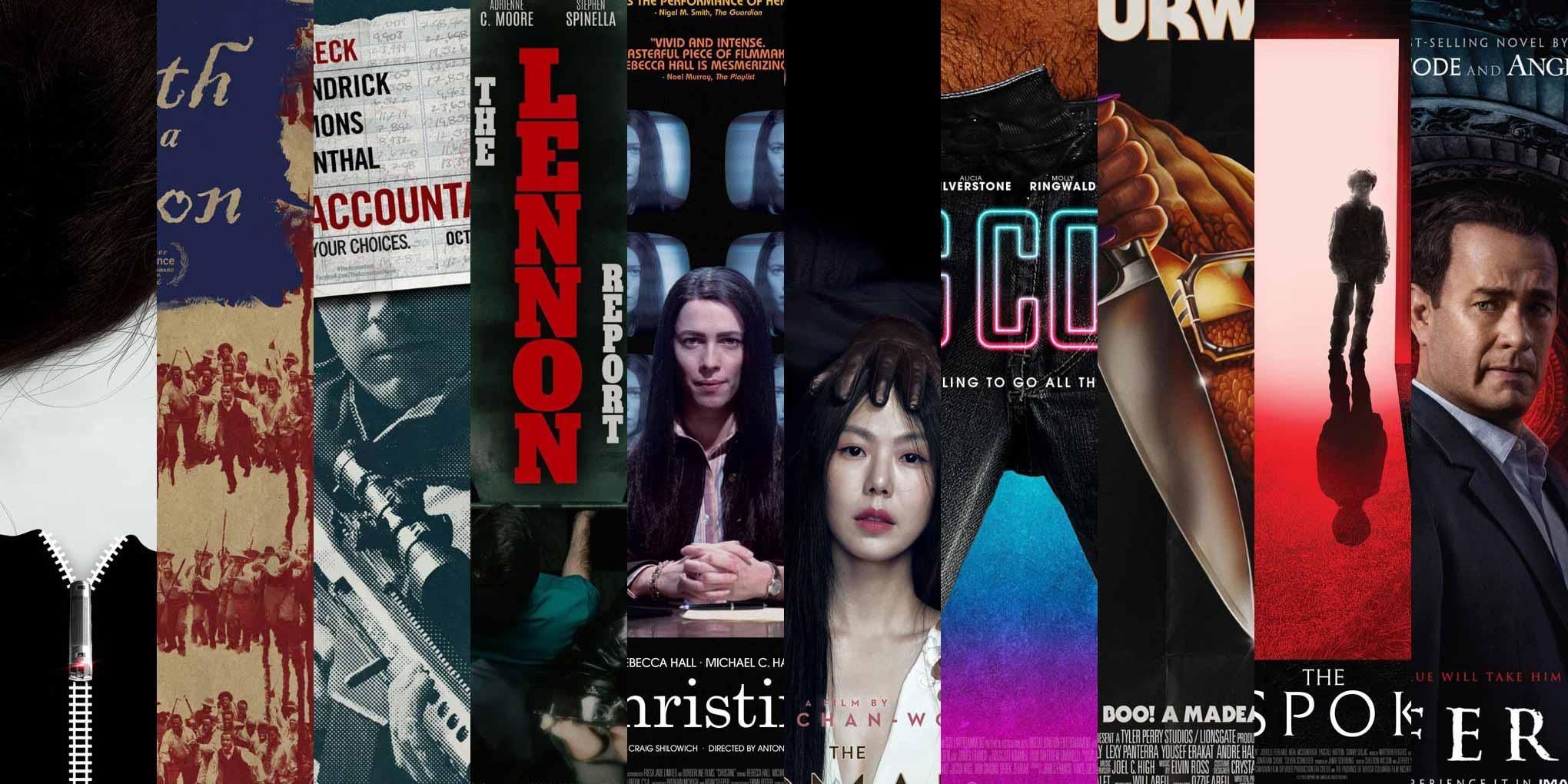
ScreenFonts: January 2017
The premier of ScreenFonts at Type Network features (full-size!) posters for The Girl on the Train, The Birth of a Nation, The Accountant, The Lennon Report, Christine, Ah-ga-ssi (The Handmaiden), King Cobra, Boo! A Madea Halloween, and The Unspoken—and comes full circle with Inferno.
Editor’s note: Yves Peters (aka Bald Condensed) has been writing ScreenFonts since 2006. After debuting the successful series on his personal blog, Peters was tasked with writing “interesting stuff” about type and typography at FontShop. Instead of preaching to the converted, he wanted to attract readers who were not yet familiar with typography and introduce them to this fascinating field. Peters’ solution was to use pop culture to spark people’s interest by writing about topics like music, film, and advertising—artifacts that form part of the fabric of daily life. ScreenFonts demonstrates Peters’ affinity for opening our eyes to the diversity of typography that surrounds us, and his wry commentary on cinematic themes is a bonus for film buffs. And now, without further ado, it’s time to raise the curtain on the first edition of ScreenFonts at Type Network.
The Girl on the Train
Film poster for The Girl on The Train
In their teaser poster for the thriller The Girl on the Train, BOND wanted to “capture the dark, dangerous mystery at the heart of a story in which nothing is what it seems.” BOND used a simple, high-concept approach. Two elements from the film—the woman witnessing the events from the train and the love affair—are combined into one striking image. The zipper on the back of a woman’s dress turns out to be train tracks, with a speeding locomotive serving as the zipper pull. The stylized image is clever and engaging, inviting the viewer to become an active participant. The train motif is also present in the typography. Parts of Avenir’s capitals are doubled, replicating the effect of watching the passing landscape from a speeding train. An additional conceptual link to trains could have been made typographically. While the over-used Gill Sans or ITC Johnston may seem like obvious choices, it’s about time we start defying expectations as designers and typographers. Greg Thompson’s elegant Agenda is a fine alternative. Agenda’s design was also inspired by the work of Edward Johnston—in this case, his iconic London Transport face drawn for the Underground a century ago—yet the humanist sans is decidedly modern, and would have been a great fit for this stylish contemporary poster.
The Birth of a Nation
Film poster for The Birth of A Nation
The iconic flag of the United States has often been used as a graphic device to tell a story. No less than three posters this month play with the stars and stripes, two of them for the historical drama The Birth of a Nation. Set in the antebellum South, this biographical account of the uprising orchestrated by Nat Turner, a literate slave and preacher, intentionally reappropriates the title of D.W. Griffith’s virulently racist 1915 epic. The teaser poster shows alternating rows of the rebelling slaves and their white masters charging at each other in monochrome red, thus creating the red stripes, with blood-like color streaming down. In the roughly painted blue canton, the stars have been replaced by the film title. The aged-paper look of the canvas nicely ties the image together. The typography, alas, is not as successful. The designer(s) obviously had period handwriting in mind, but ITC Blackadder resembles a cartoonish pirate script. Honestly, the name kind of gives it away. While the font itself is poorly drawn, the handwriting in the alternate poster on the right looks more appropriate. There are many digital interpretations of the scripts used in the Declaration of Independence that would have done an even better job, or simply a calligraphic script with a classical look, like Sloop Script or Savanna Script.
The Accountant
Film poster for The Accountant
In The Accountant, Ben Affleck plays a math savant who becomes a target of the Treasury Department as he uncooks the books for a new client, and bodies start to drop. Poster designers P+A used a strategy similar to Jon Manheim’s for Money Monster. Just as the television test pattern hiding most of his face could not disguise George Clooney, Ben Affleck is easily recognized despite the paper covering the top half of his head in the teaser poster. In both cases, the anonymization of the actor serves a specific purpose. For Money Monster, it emphasizes the expression of Clooney’s mouth, providing a metaphor for the words that set in motion a chain of events leading to a hostage situation. In the poster for The Accountant, this technique directs the viewer’s attention toward the gun. Together with the coarse rasterization which makes the image look like a newspaper clipping, it lends the act of killing a disconcerting emotional detachment. Morris Fuller Benton’s classic Alternate Gothic is laid over scribbled numbers on a page ripped from an accounting ledger—a nice detail. Try Benton Sans as an alternative. This redesign of Benton’s work—initiated by Tobias Frere-Jones and developed by Cyrus Highsmith—is a far-reaching series with matched weights and widths, offering performance well beyond the limits of the original.
The Lennon Report
Film poster for The Lennon Report
The Lennon Report is the unheard true story of the moments after Lennon was shot, as seen through the eyes of those who lived it. On the theatrical one-sheet, an image of a gurney seen from above, surrounded by medical personnel and press as it is being hurried toward the emergency room, beautifully conveys the urgency of the moment. Having the movie title impersonate John Lennon’s body on the gurney is a brilliant idea and makes the poster even stronger. It’s hectic, it’s chaotic, it’s messy—exactly what it needs to be. The condensed neo-grotesque slab serif works surprisingly well set vertically, thanks in part to the fact that there are no exceptionally wide or narrow letters in the title. Add a W or an I to the mix and the whole thing falls apart. Matthew Carter did a masterful interpretation of this style with his expansive Roster family.
Christine
Film poster for Christine
Guns are also an underlying theme in this third poster in a row, this time not to kill another, but to take one’s own life. The biographical drama Christine shows 1970s TV reporter Christine Chubbuck struggling with depression and professional frustrations severe enough to drive her to commit suicide live on the air. It is interesting to compare the main theatrical poster on the left with what I think is a festival poster on the right; they are both strong designs, but quite different. The main poster offers a more conventional image, with the titular character seated at a news desk. The static, symmetrical setup and Rebecca Hall’s intense gaze, multiplied by the monitors behind her, give the poster a foreboding quality. The festival poster is experimental: placing the television on Hall’s shoulders and her head on the screen disconnects her thoughts from her being, a perfect metaphor for her psychic unraveling, Her sideways glance hints at her angst and vulnerability. Two noteworthy design details: in the main poster, the testimonials are set in ITC Bauhaus to reinforce the 1970s look; in the festival version, elbow and antenna break through the border, adding subtle depth. Morris Fuller Benton’s Century Schoolbook gives the movie logo a period-faithful newsy look. “The typeface that taught America how to read” was one of the templates for the Benton Modern series. Originally developed by Font Bureau as a text face for the Boston Globe and the Detroit Free Press, its design and proportions were taken from Benton’s turn-of-the-twentieth-century Century Expanded, while the italic was based on Century Schoolbook. The series was expanded with Display cuts designed by Dyana Weissman and Richard Lipton.
Ah-ga-ssi (The Handmaiden)
Film poster for The Handmaiden
© 2016 Amazon Studios.
Film poster for The Handmaiden
© 2016 Amazon Studios. Poster by Empire Design.
Films by Korean writer and director Chan-wook Park occupy a realm of their own in contemporary cinema. In his romantic drama Ah-ga-ssi (The Handmaiden), a woman hired as a servant to a Japanese heiress is secretly involved in a plot to defraud her. Don’t be fooled–the international poster on the left is more than a mere ensemble cast poster—it has the four protagonists cleverly placed on the canvas to illustrate their relationships. The orientation of their faces and bodies, and particularly the position of their hands, is anything but random, giving clues to the intrigue about to unfold. Empire Design’s illustrated poster is simply gorgeous. Upon closer inspection, what looks like an art deco painting reveals (and in my opinion actually spoils) certain story elements. Since the film takes place in the 1930s, the art deco display sans Neutraface fits. I love how the letters are woven into the detailed art, giving a surprising dimensionality to the illustration. Because it was originally released in Book and Bold weights only, I almost forgot that David Berlow’s lovely Light weight of Bureau Eagle is an excellent alternative.